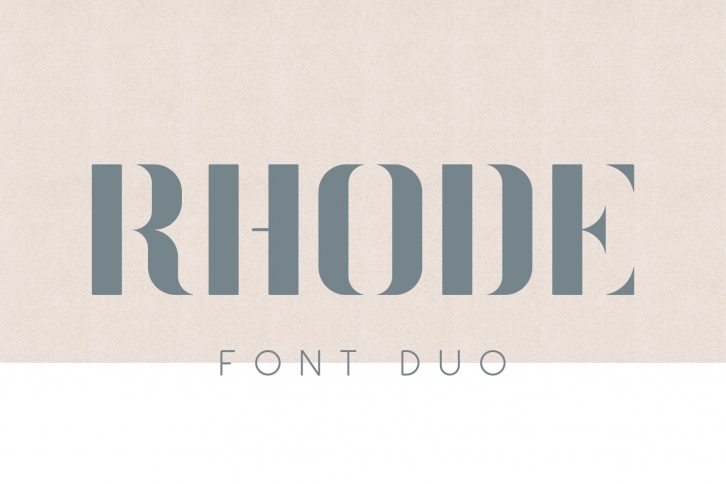
Rhode Duo is a great font that was designed by MikeHillDesign. Imagine the amount of combinations you can create using this font! The archive is 4.28 MB and it was released on June 2, 2018. Rhode Duo looks beautiful on wedding invitations, greeting cards, logos, posters, labels, t-shirt designs, logos, business cards and is perfect for use in ink or watercolor works, fashion, magazines, packaging and food menus, children's books and more!